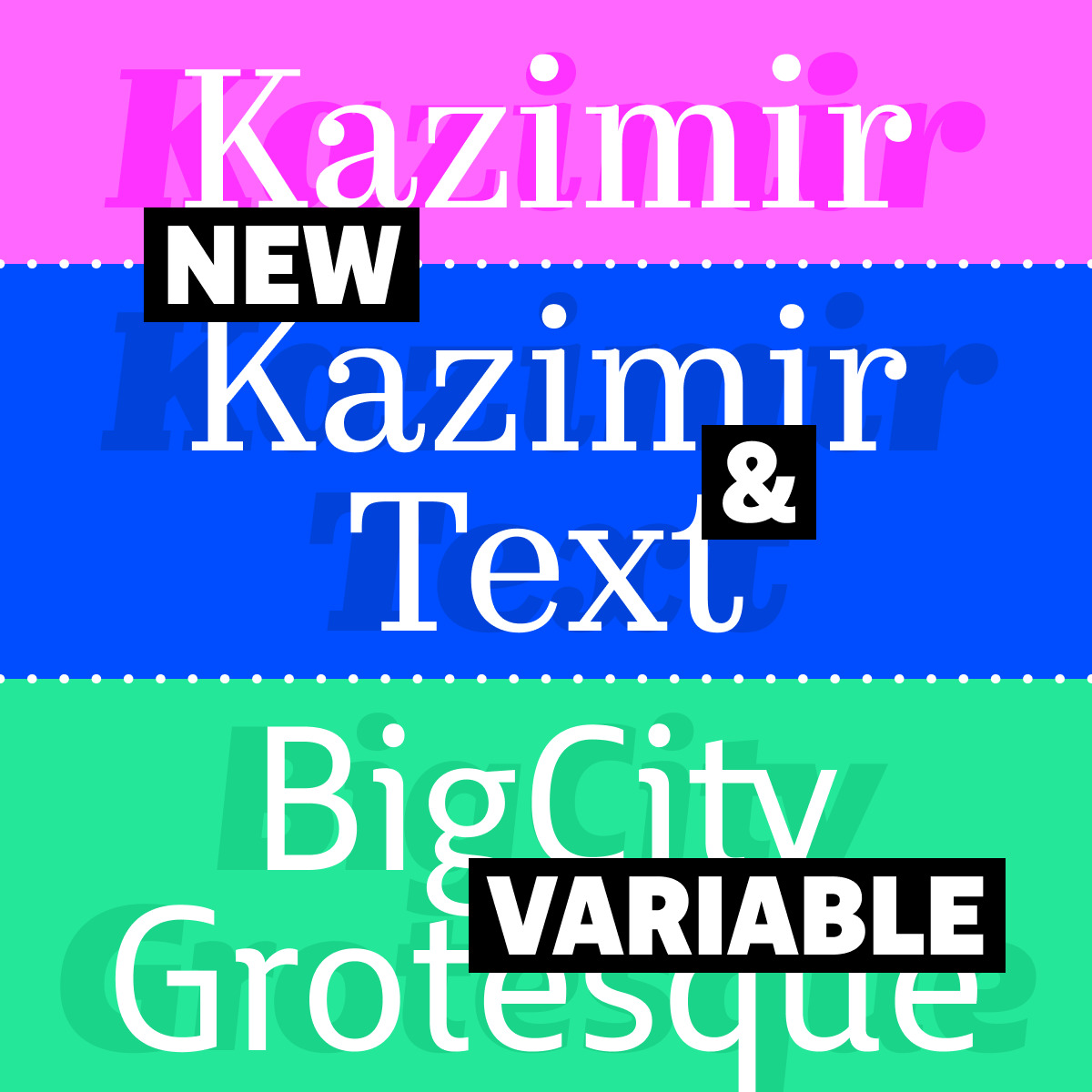
New typefaces: Kazimir, BigCity Grotesque Variable
Variable versions of two CSTM Fonts typefaces
BigCity — a humanist sans serif with a large set of Cyrillic ligatures — is now also available as two variable fonts — upright and slanted — with a weight axis.
Kazimir — a collection of static text and display serifs — now includes four variable fonts with weight axes: two in Kazimir and two in Kazimir Text.
BigCity Variable
Kazimir Variable
Kazimir Text Variable